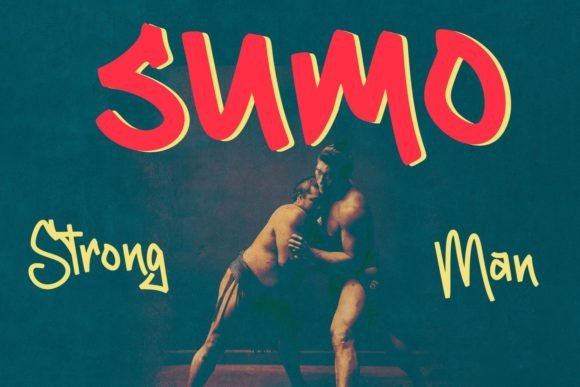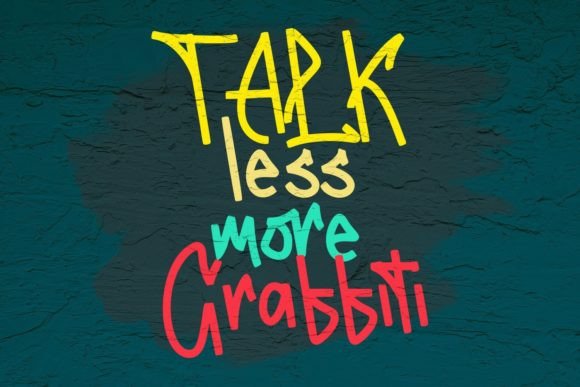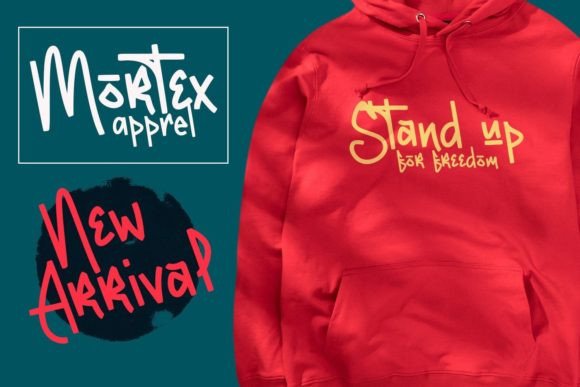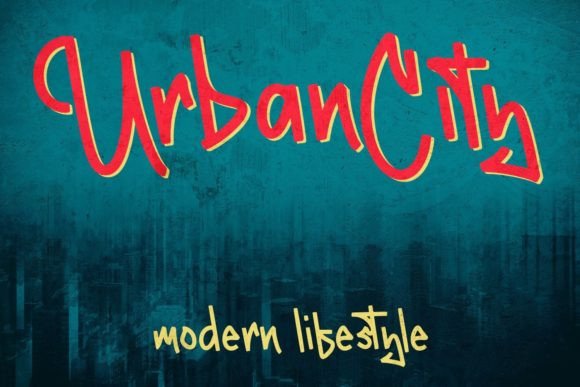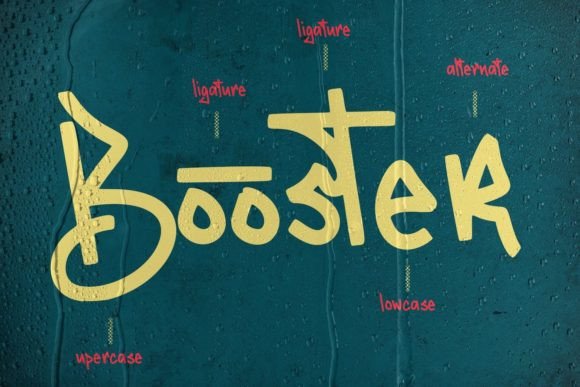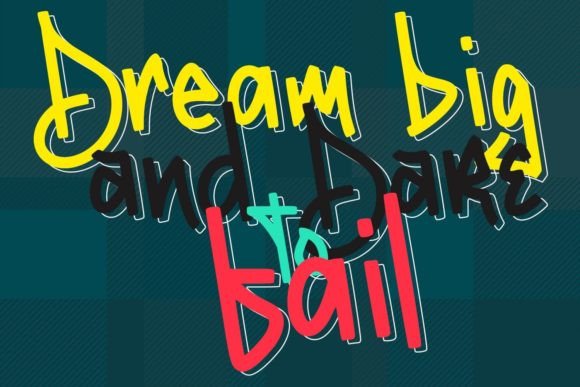
Introduction to Big Honks Font
Big Honks is a graffiti-style handwritten display font.
Its cool, trendy and urban vibe makes it suitable for a variety of modern projects such as headlines, streetwear, social media posts, titles, posters, or anything you can think of .
Key Features of Big Honks Font